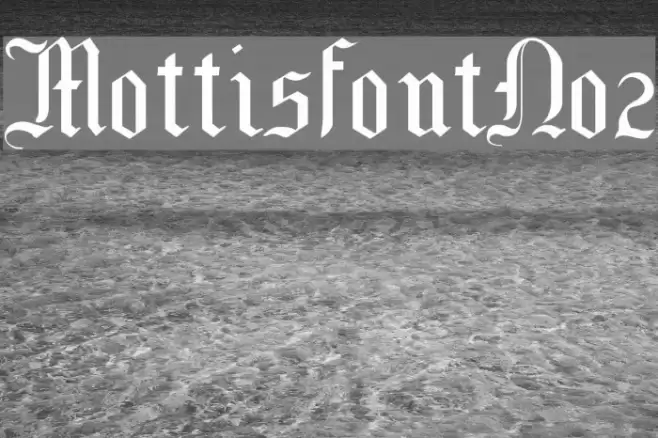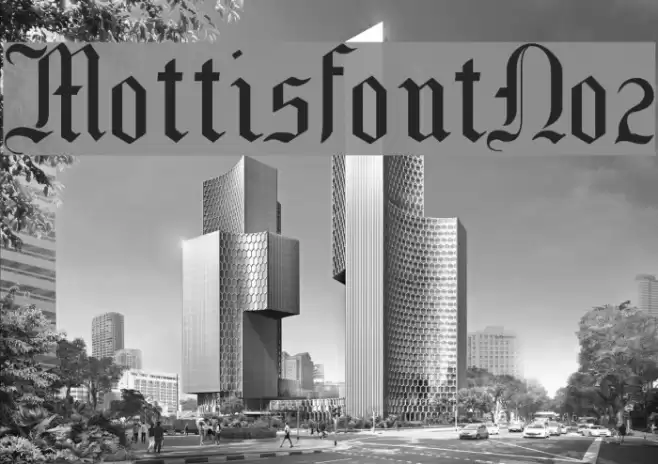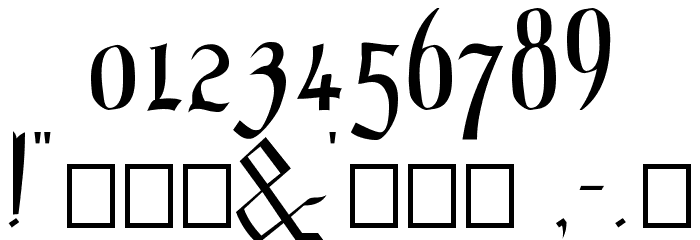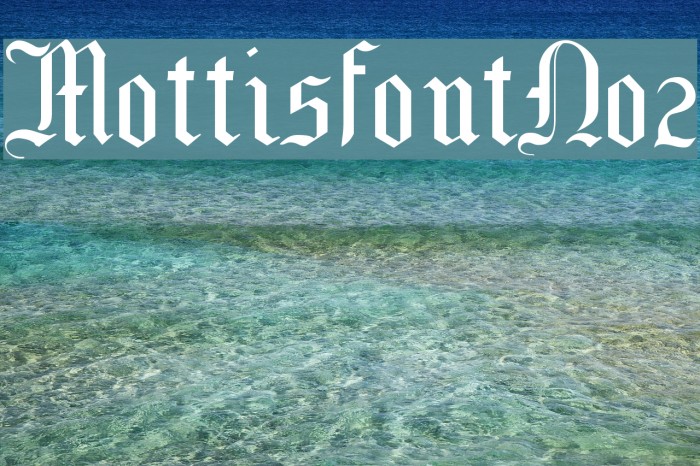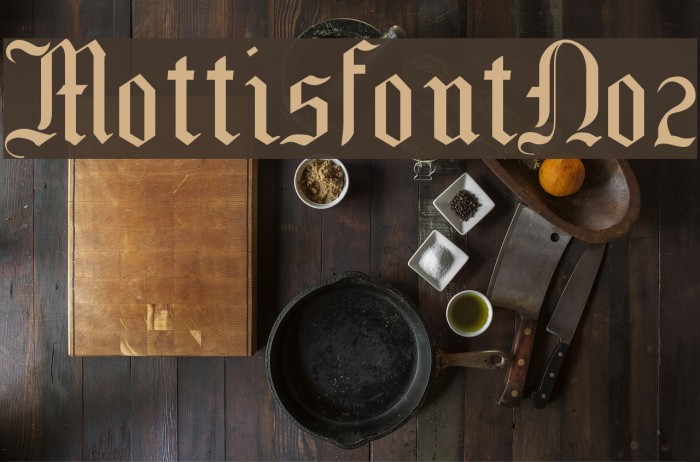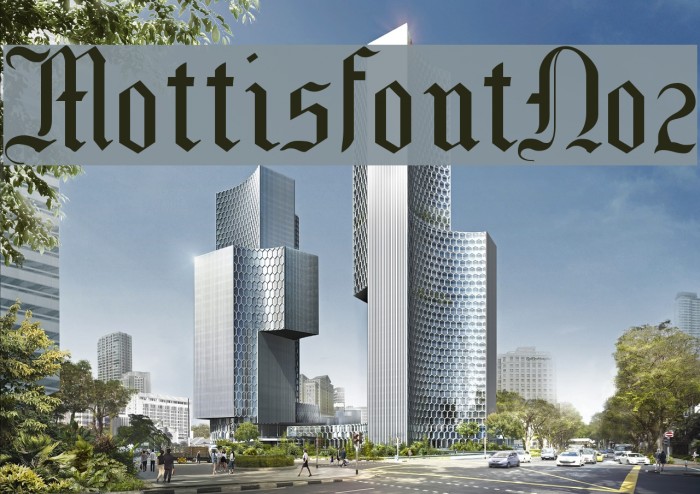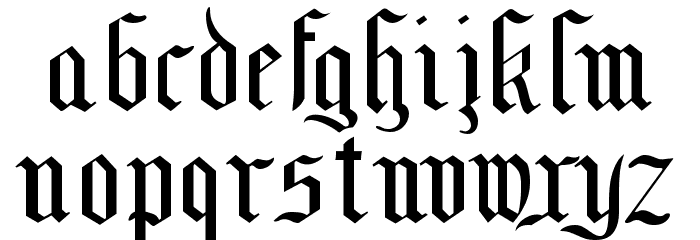
MottisfontNo2 Font
MottisfontNo2 Description
This font exhibits a classic blackletter style, characterized by its ornate and intricate letterforms. The uppercase letters feature elaborate flourishes and sharp angles, while the lowercase letters maintain a consistent gothic aesthetic with pointed arches and strokes. The numerals are stylized to match the overall theme, with unique curves and edges. The special characters, including punctuation and symbols, are designed to complement the gothic style, adding to the font's cohesive appearance. This font is reminiscent of medieval manuscripts and traditional calligraphy, making it suitable for projects that require a historical or formal touch.
A classic blackletter font with ornate and intricate gothic letterforms from Gothic fonts.
- Proposed Projects: Ideal for historical documents, wedding invitations, certificates, and branding that requires a traditional or formal look.
- Overall Style: Classic
- Use Case: Headlines, Logos, Decorative text